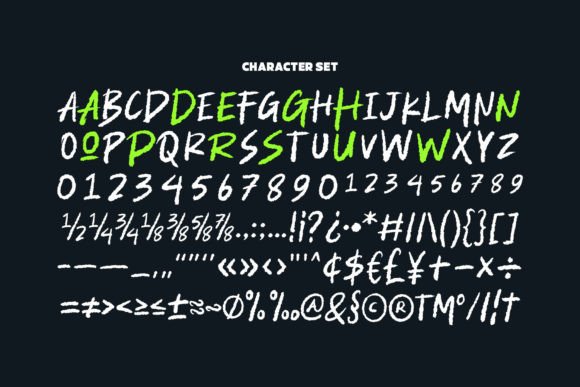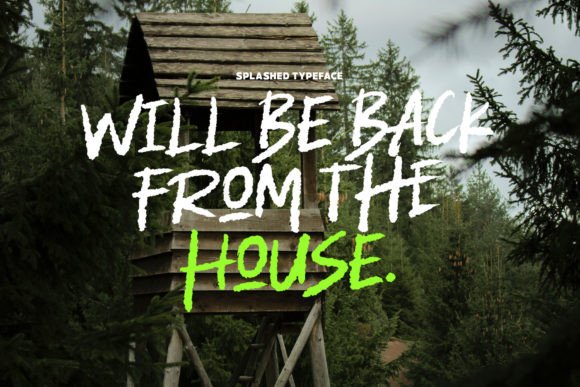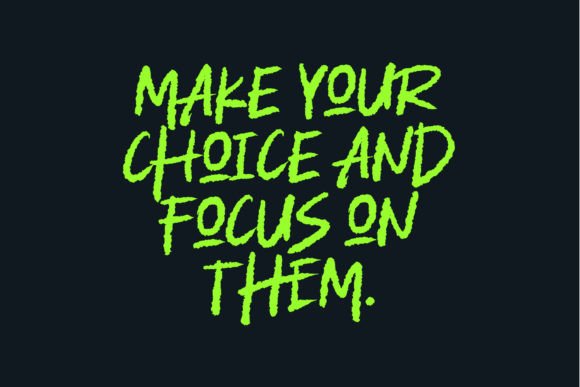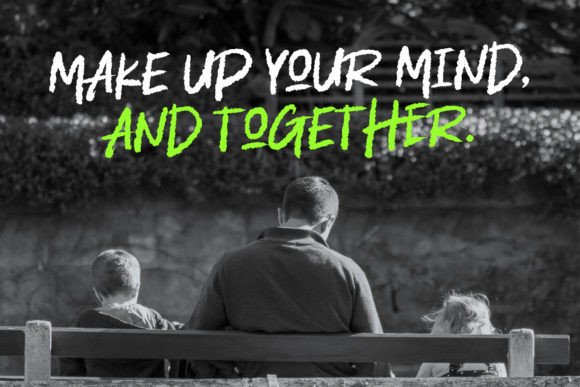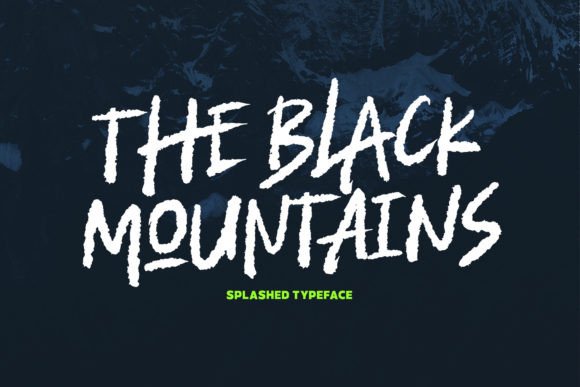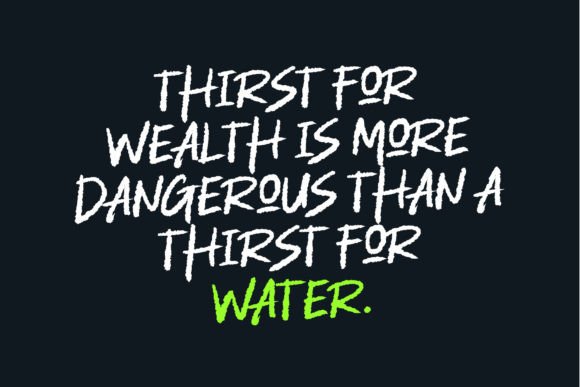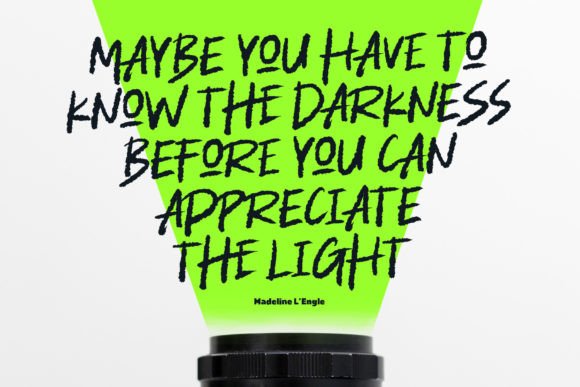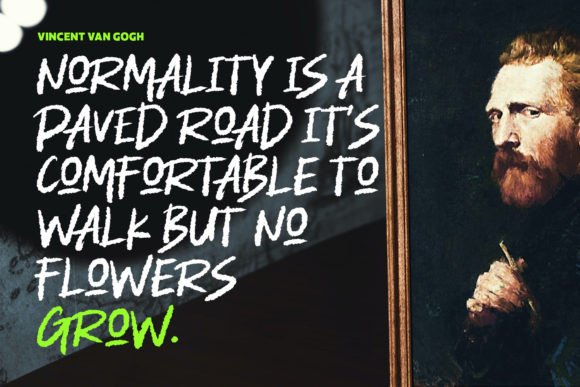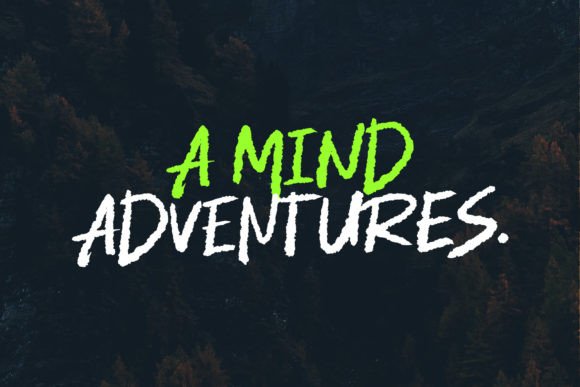
Splashed Font
About Splashed Font
Splashed is not just a font; it’s a dynamic handwritten brushstroke that adds energy and vibrancy to your designs. Crafted for headlines, branding, advertising, and beyond, this font is a bold choice for those seeking to infuse their projects with a splash of creativity.
The dynamism of Splashed is evident in its brushstroke design. The characters exude movement and liveliness, making it an ideal choice for headlines that demand attention. Whether you’re creating a bold statement or emphasizing a key message, Splashed ensures that your text doesn’t just speak but resonates with energy.
Perfect for branding, Splashed brings a unique and dynamic quality to your visual identity. Its brushstroke nature adds a touch of handcrafted authenticity, making your brand stand out with a bold and vibrant personality.
In advertising, Splashed becomes a powerful tool for catching the eye. The dynamic brushstrokes draw attention and make your messages more engaging. Whether it’s on billboards, posters, or digital platforms, Splashed ensures that your advertising materials make a memorable impact.
By adding Splashed to your fonts library, you’re not just acquiring a typeface; you’re investing in a design asset that transforms your projects into dynamic and visually spectacular creations. Its brushstroke design gives your text a sense of movement and excitement, making it a standout choice for those who want their designs to exude energy.
In essence, Splashed is a font that goes beyond the conventional, offering a dynamic and handcrafted quality to your headlines, branding, and advertising. It’s a brushstroke of creativity that transforms your designs into visually spectacular expressions of energy and vibrancy.